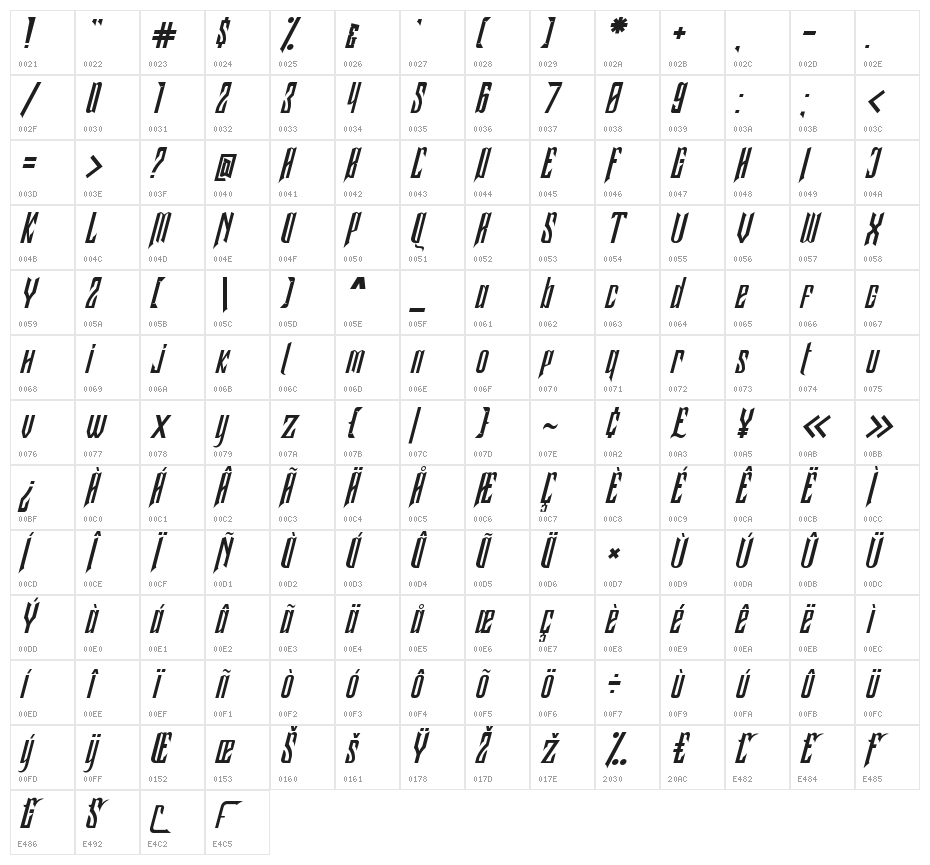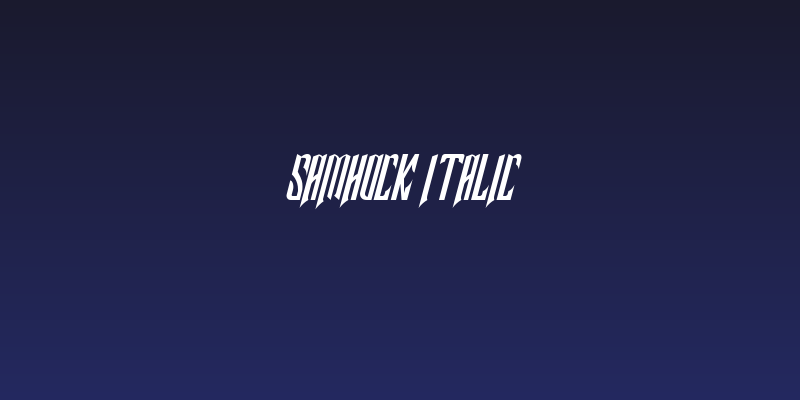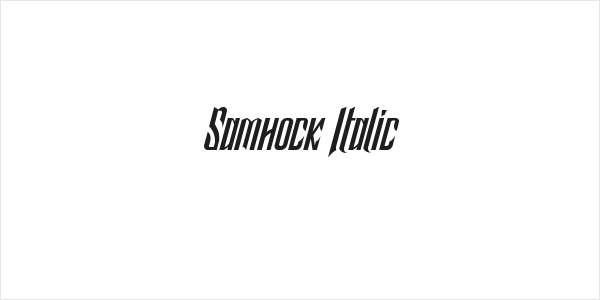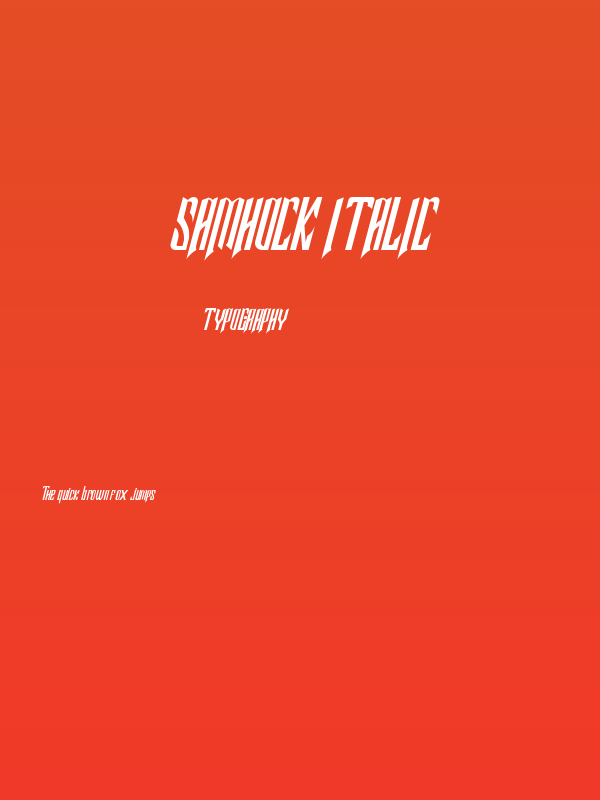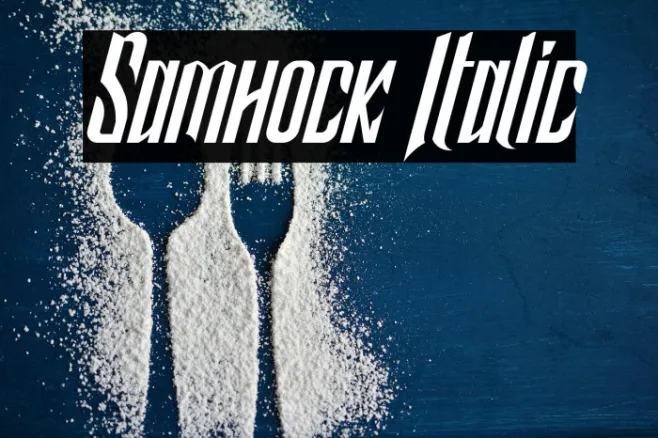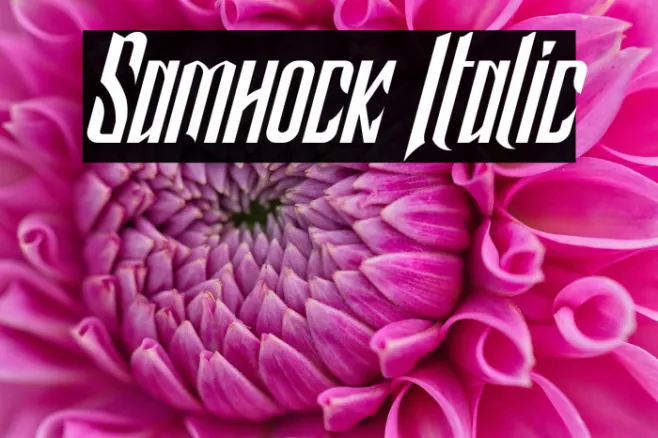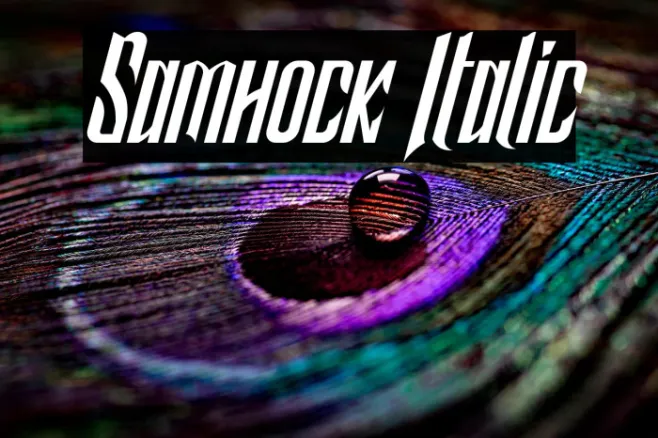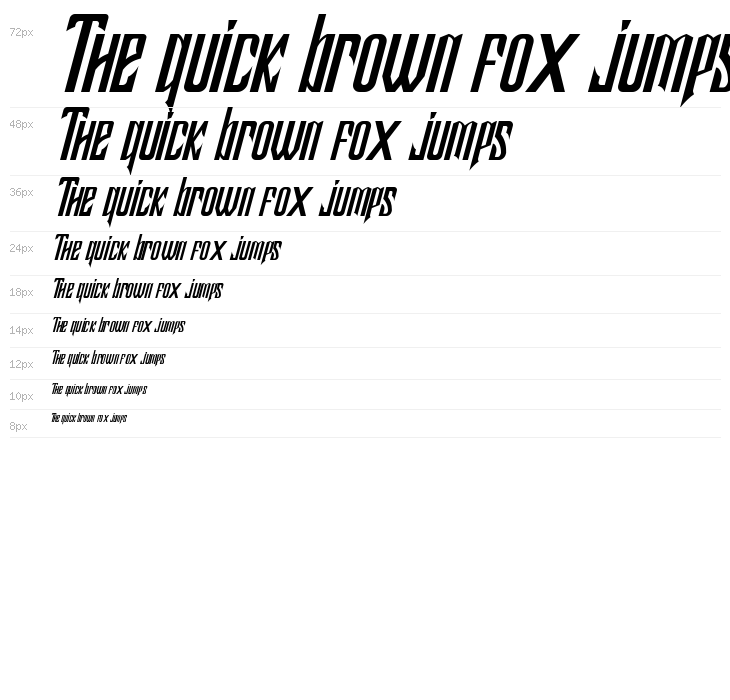
Samhock Italic Font
Samhock Italic Description
This font features a bold and dynamic style with a strong italic slant, giving it a sense of motion and energy. The characters are sharply angled, with a distinct geometric influence that adds a modern and edgy feel. The uppercase and lowercase letters maintain a consistent height, while the numbers and special characters integrate seamlessly into the overall design. The strokes are thick and uniform, providing a high contrast that enhances readability despite the italicized form. This font is particularly striking in its ability to convey a sense of urgency and modernity, making it ideal for attention-grabbing headlines and impactful designs.